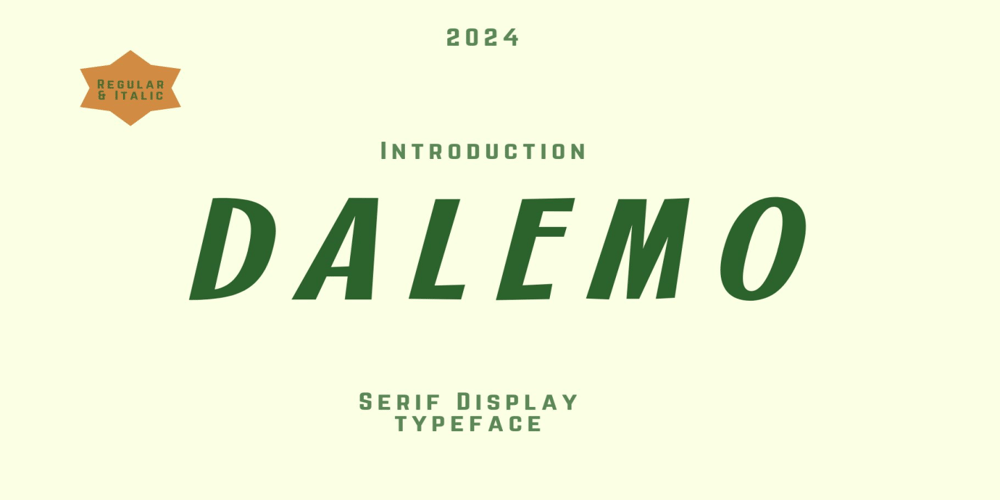
Dalemo Font Family was designed by Jim Parkinson and published by Adita Fonts. Dalemo contains 2 styles and family package options. Introducing Dalemo , a playful retro font. It’s inspired by a fabulous mid-century design, but also can be easily used in a modern context. This font is a great fit for beautiful headers, cozy event posters, and especially for Holiday greetings cards. Also, it works really well if you are designing any kind of product for kids. Have fun using it!